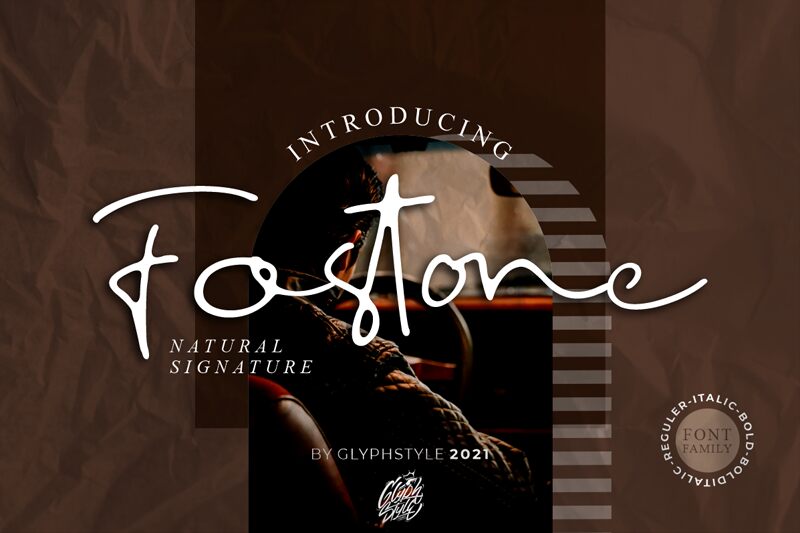
Fostone is a delightful handwritten font designed by Glyphstyle. Its light weight and semi-expanded width make it perfect for projects that need a touch of elegance and playfulness. Whether you are designing wedding invitations, product packaging, or social media graphics, Fostone adds a charming and personal touch to your work. This font's smooth curves and flowing lines create an effortless feel that's perfect for conveying casual yet refined vibes. Bring your designs to life with Fostone's unique style and let its warm personality shine through in all your creative endeavors.